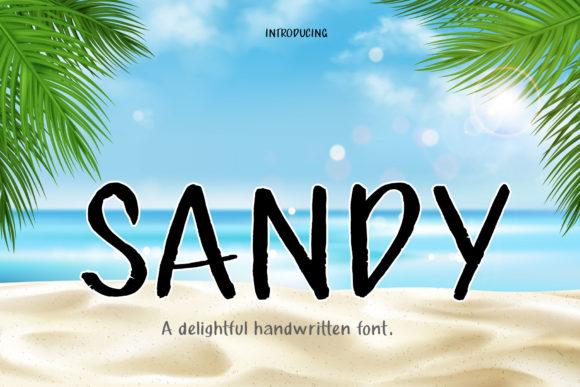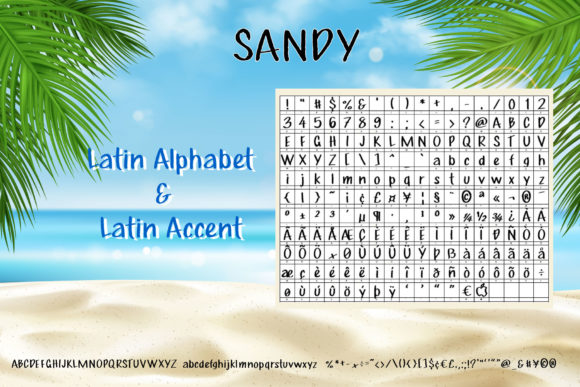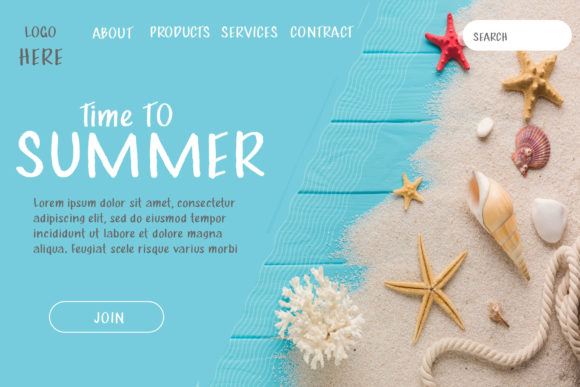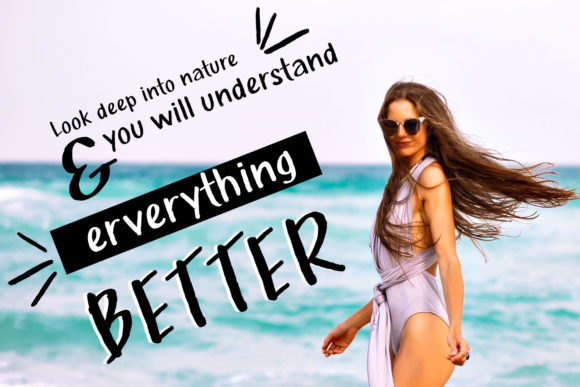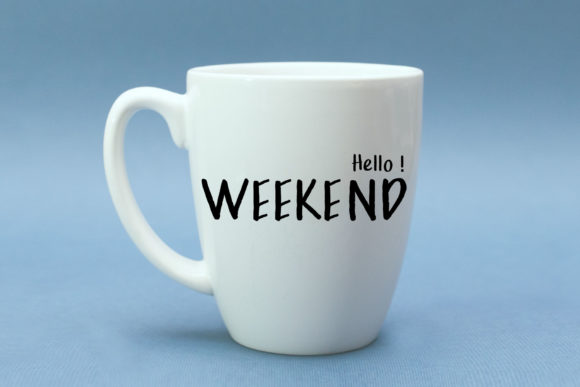
Sandy Font
About Sandy Font
Sandy is a delightful handwritten font. It is simple and natural, and as a result, it will complement a wide range of casual or friendly designs.